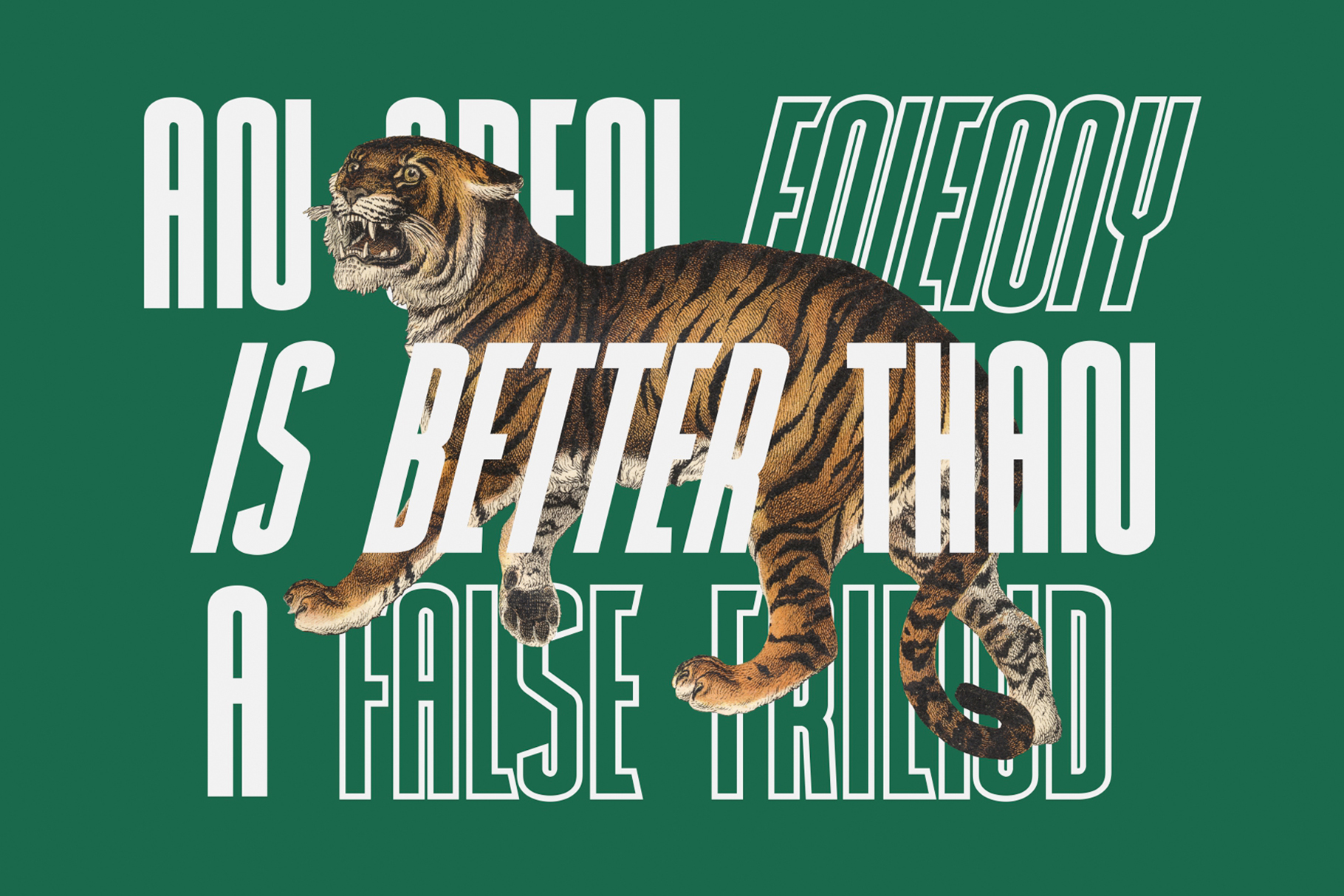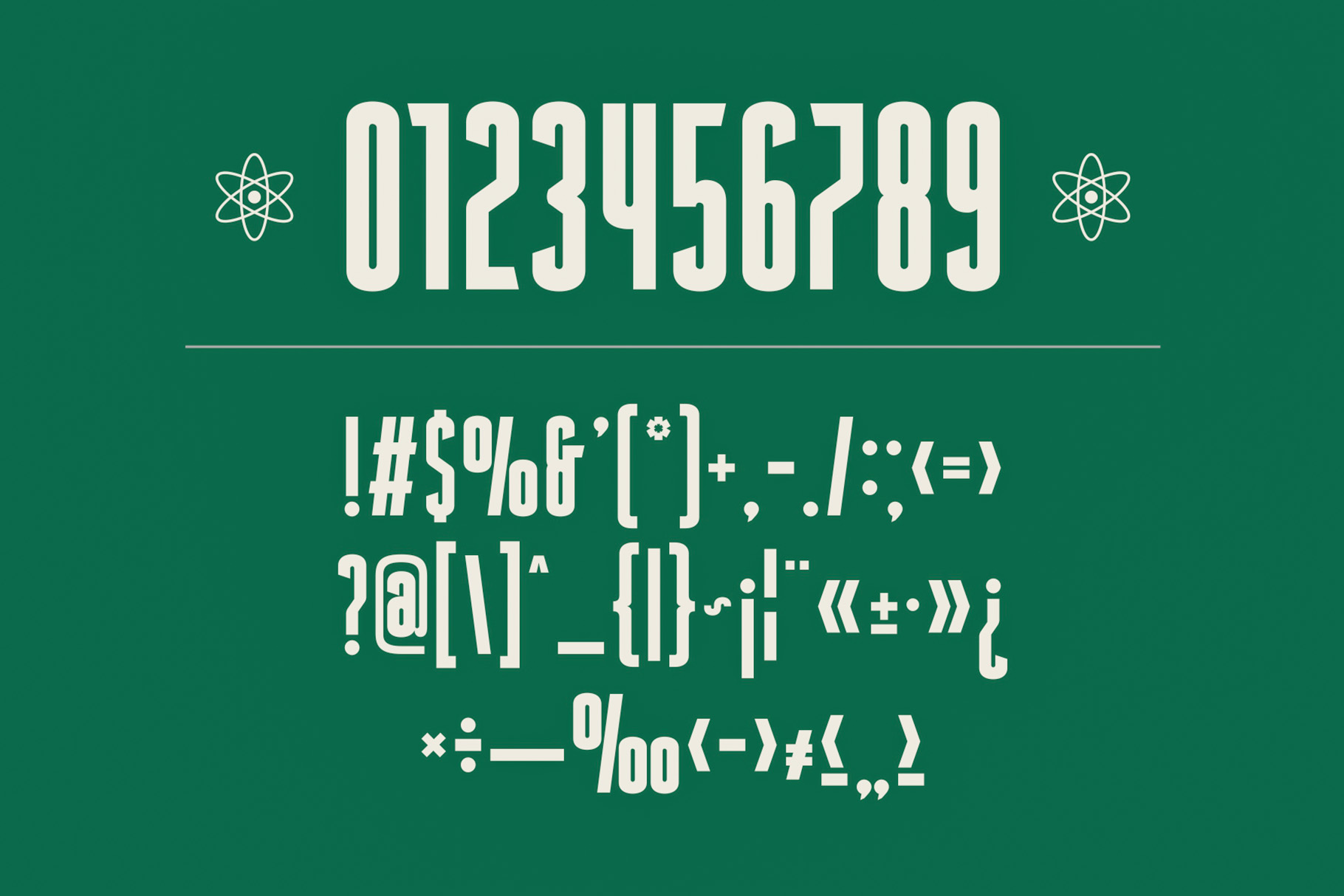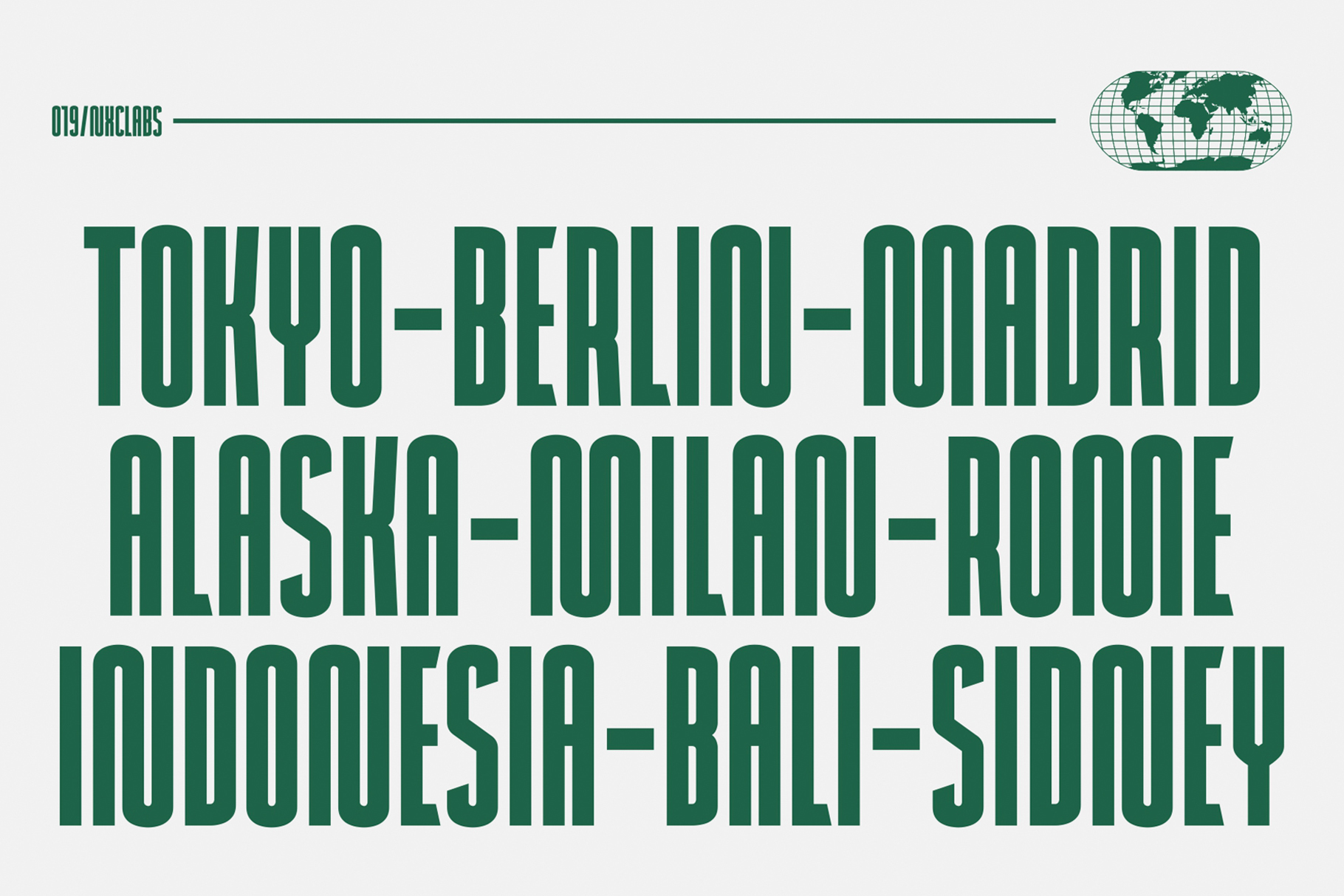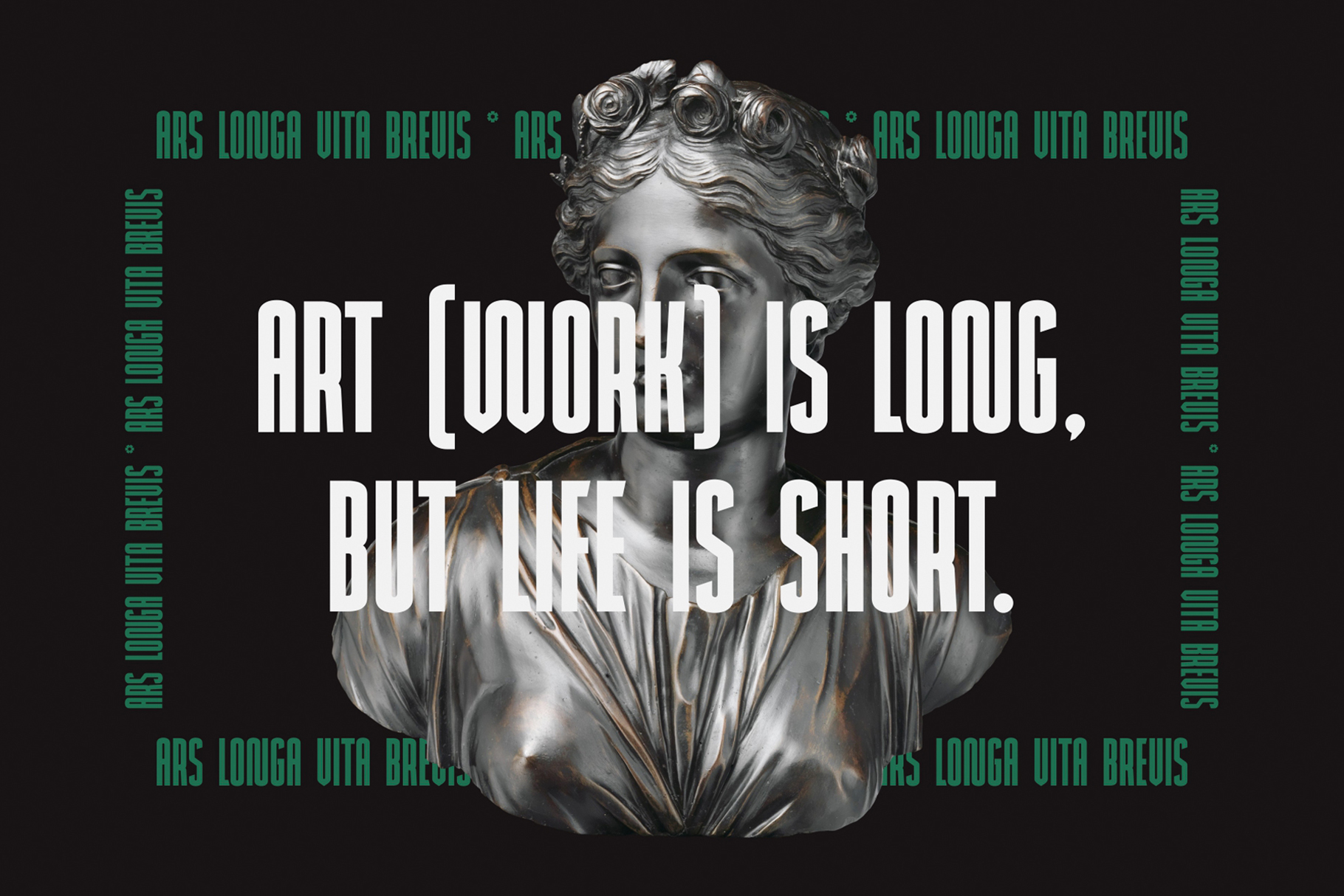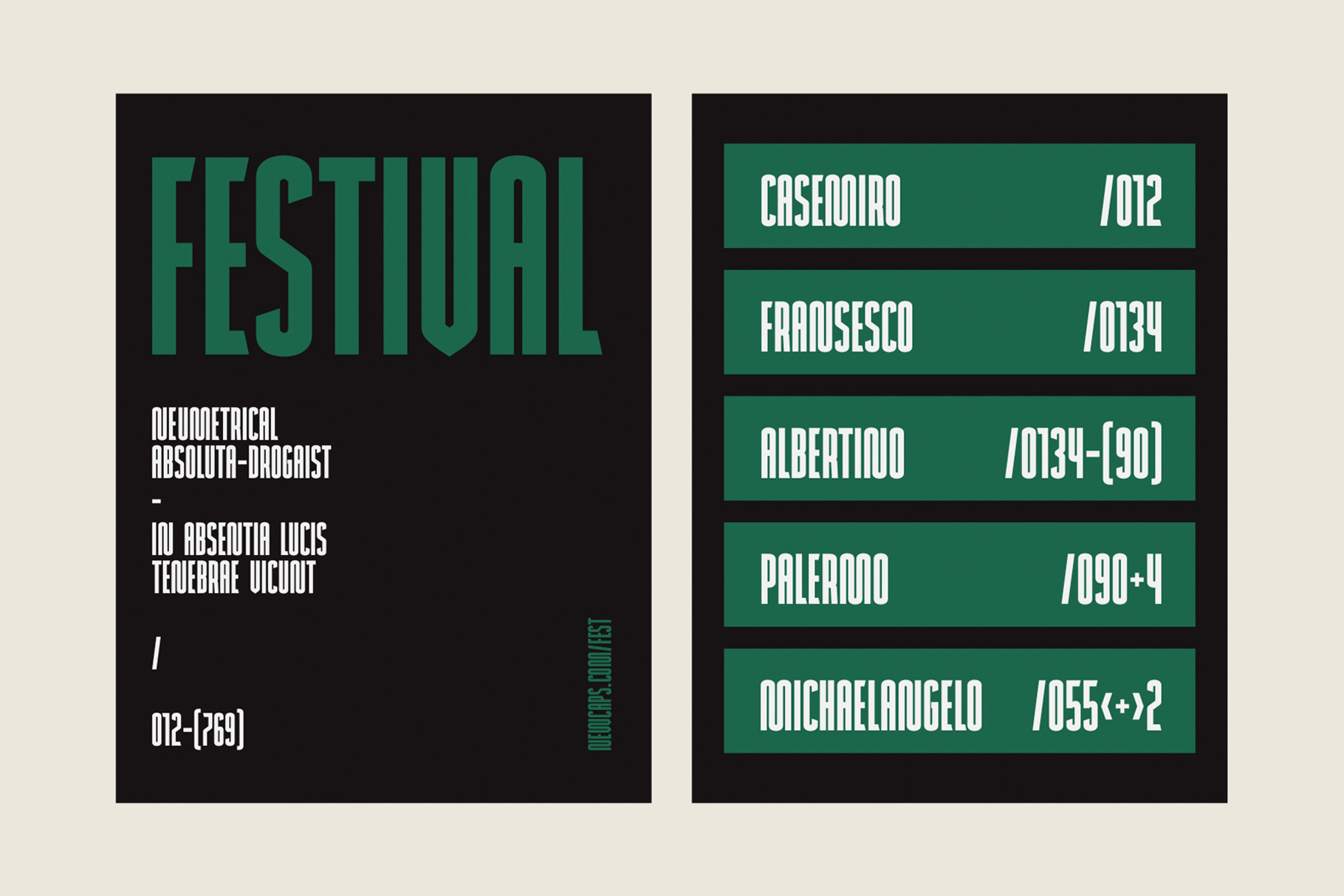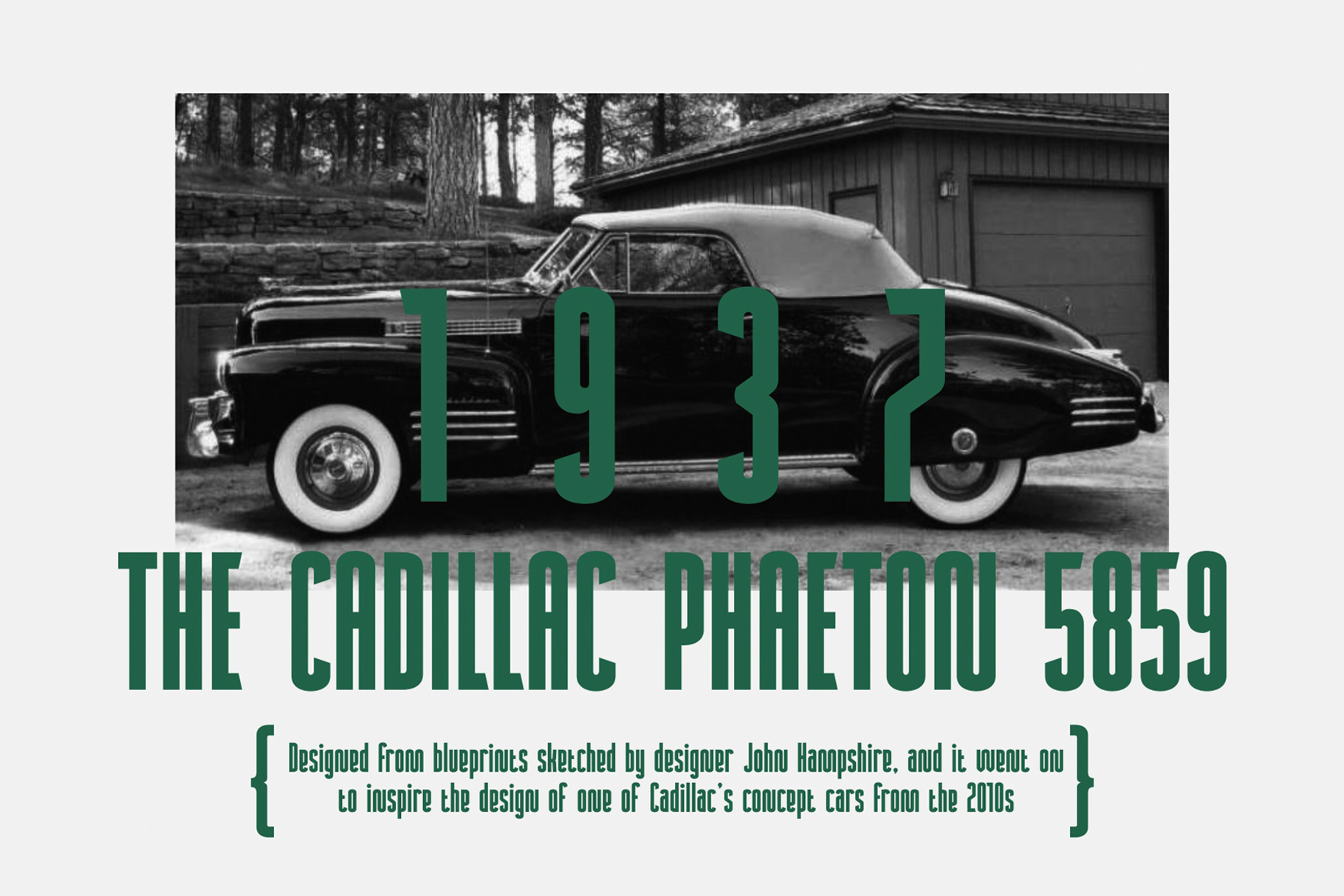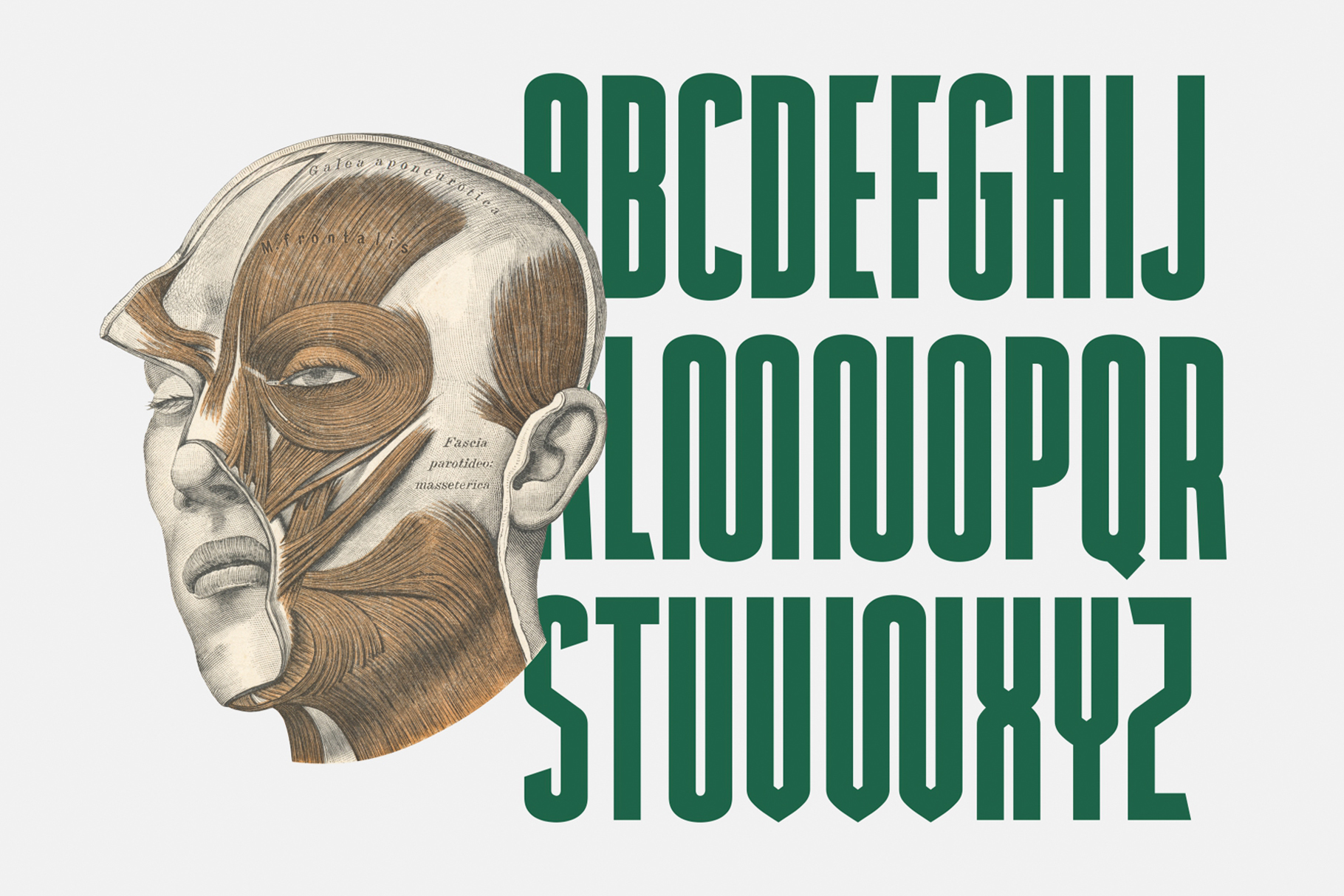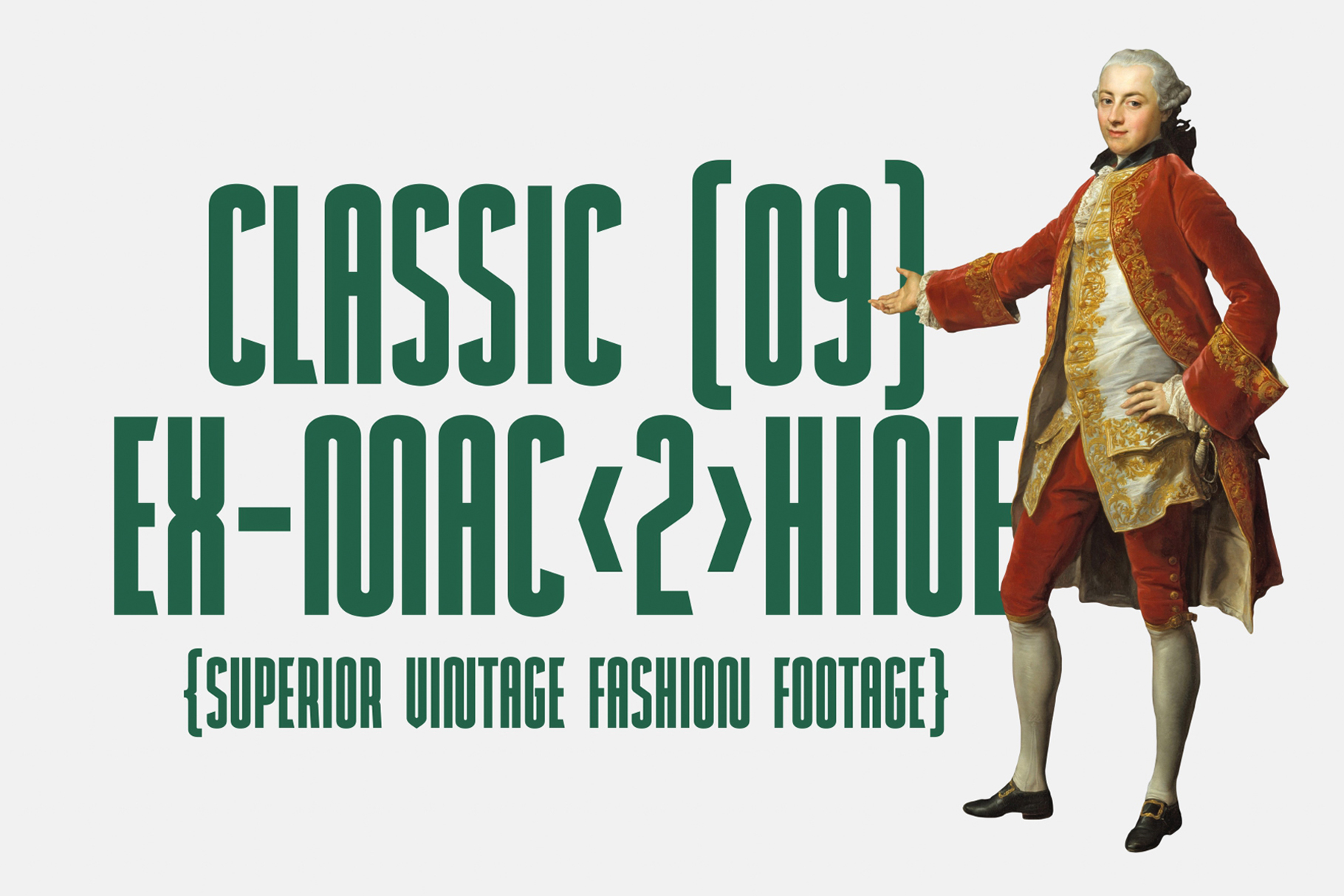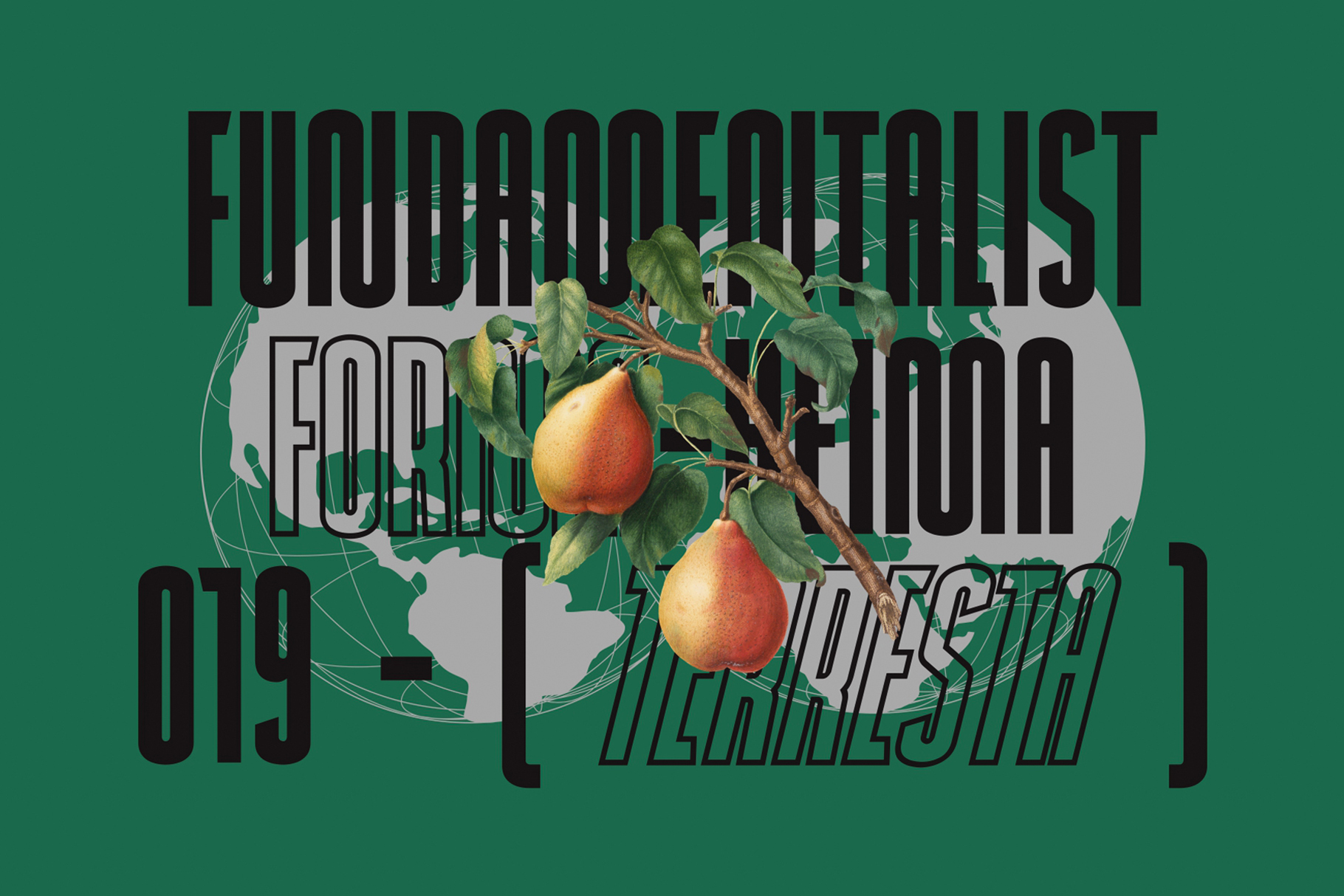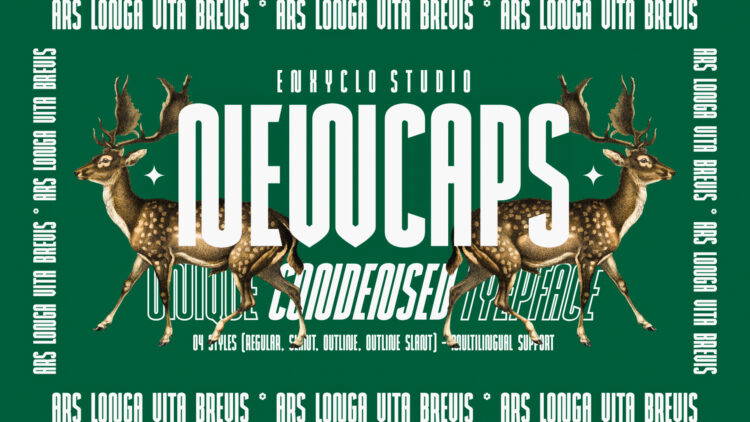
Newcaps – Bold Modern Condensed Font
NEWCAPS is a bold condensed headline display font that features lowercase letters. With this bold typeface, you can be even more expressive in your design projects. It is perfect for headline, billboard, magazines, website, titles, poster, branding, and logos. With this beautiful font, absolutely you can make your project stand out from the rest. See the previews above to get some inspiration on how to use them.
• 4 Styles: Regular, Slant, Outline, and Outline Slant
• Contains 228 Glyphs for Each Style (Total: 912 Glyphs)
• Uppercase, Lowercase, Numeral, Punctuation & Symbol
• Multilingual Support